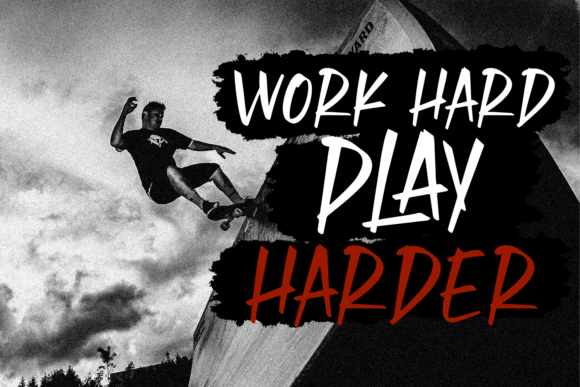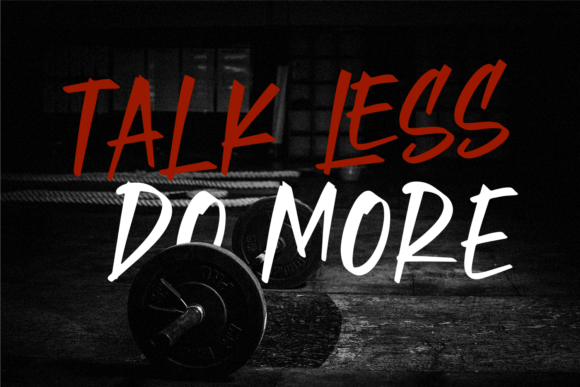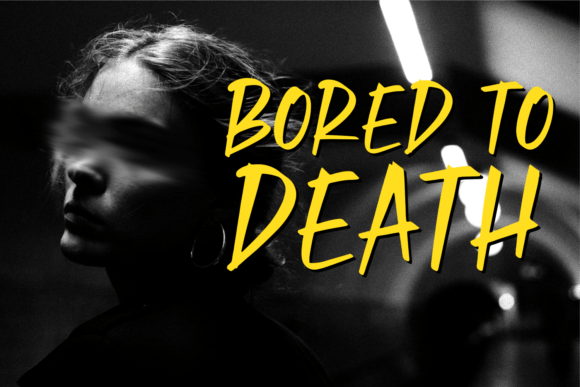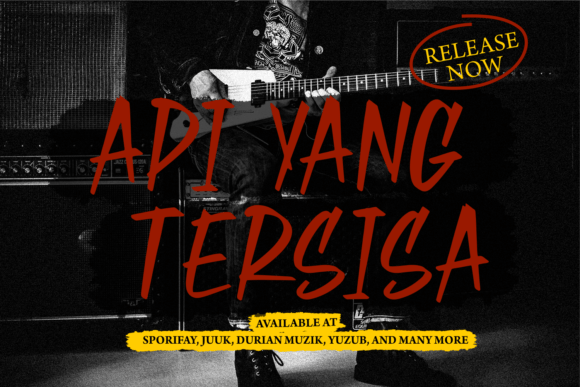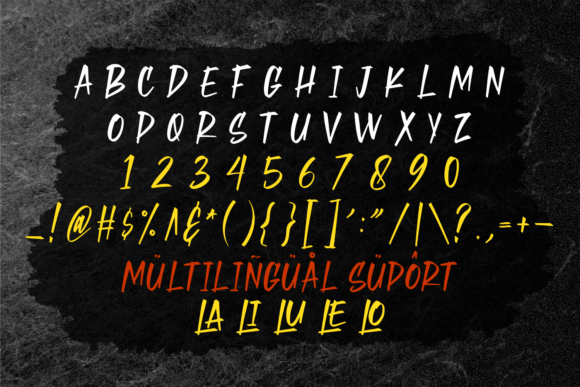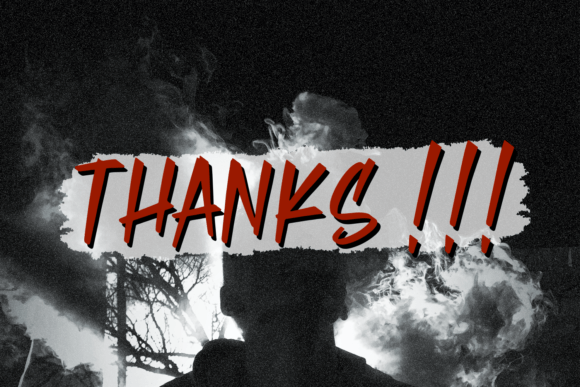
Introduction to Slamed Font
Have you ever been in a creative frenzy, pouring over designs for the perfect look? You’ve got a vision in your head, but it’s just missing that special something. For designers, finding the right font can be the difference between a good design and a great one. That’s where the Slamed Font comes in – a beautifully crafted handwritten script font that’s sure to elevate your designs to the next level.
With its classic and elegant style, the Slamed Font is a versatile design resource that’s perfect for a wide range of creative projects, from events and wedding projects to fashion and apparel designs. Whether you’re working on a logo, branding, magazine, or social media post, this high-quality font is sure to impress.
Key Features of Slamed Font
- Unique characteristic: Slamed Font includes a wide range of ligatures and alternates for added creativity
Honest Review: Slamed Font
I recently had the chance to work with the Slamed Font, and I must say it’s a great addition to any designer’s toolkit. As a design resource, it offers high quality and versatility, making it perfect for a creative project.
- ✨ Unique and modern design style, perfect for futuristic or sci-fi themes
- ✨ Highly customizable, allowing for a wide range of color and size options
- ⚠️ Limited character set, which may not be suitable for complex or lengthy text
- ⚠️ May not be the best choice for traditional or conservative designs
Overall, I’m impressed with the Slamed Font. Its unique design style and high quality make it a great choice for designers looking to add some flair to their creative project. While it may have some limitations, I believe it’s a valuable addition to any design resource library.
Tips for Getting the Most Out of Slamed Font
Slamed Font is ideal for creative projects such as logos, posters, social media graphics, and brochures. Its unique design makes it perfect for attention-grabbing headlines and titles.